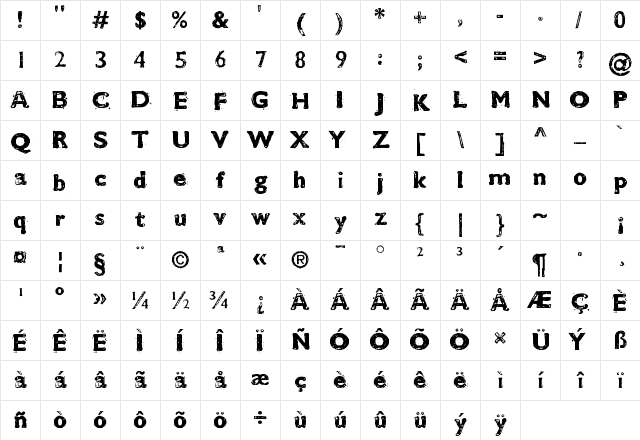
CMDestroy Regular
Design Context for CMDestroy
CMDestroy is a composed and adaptable typeface that performs quietly and consistently across a wide range of design contexts.
Pro Tip: Use CMDestroy in both headline and body roles to test its range before committing to a single application.